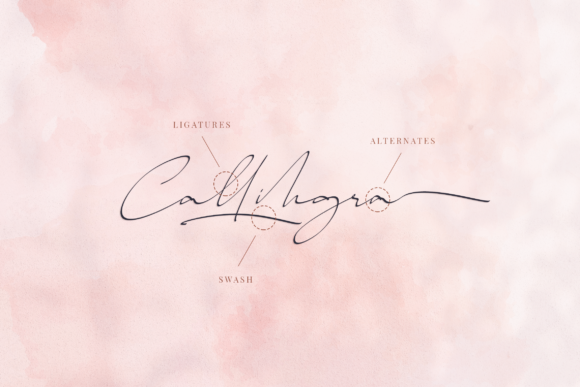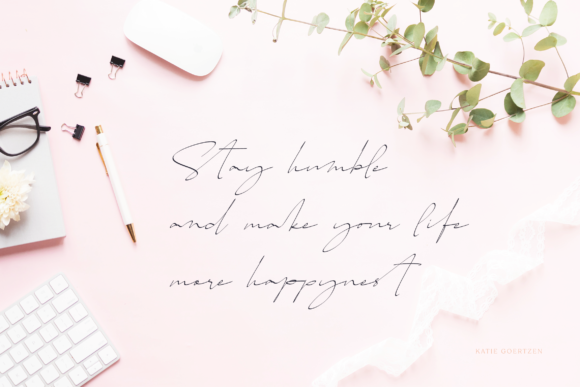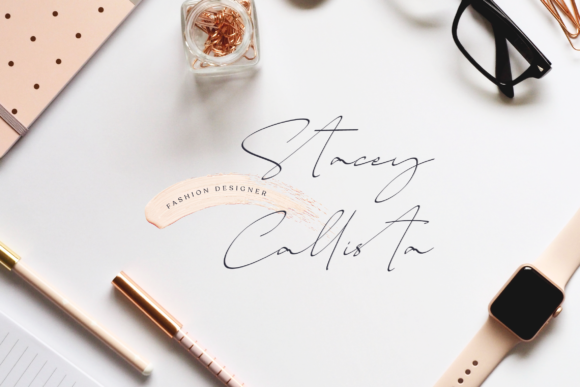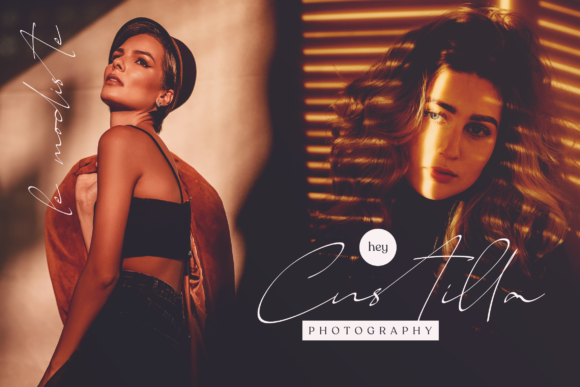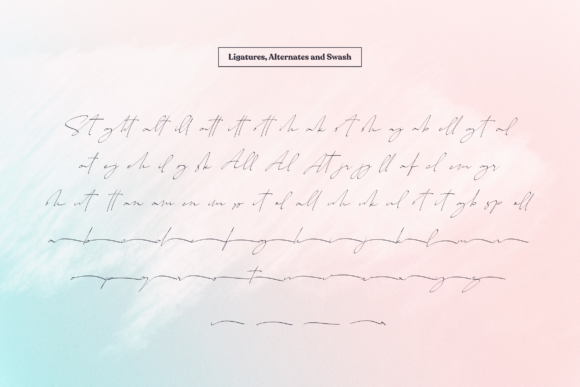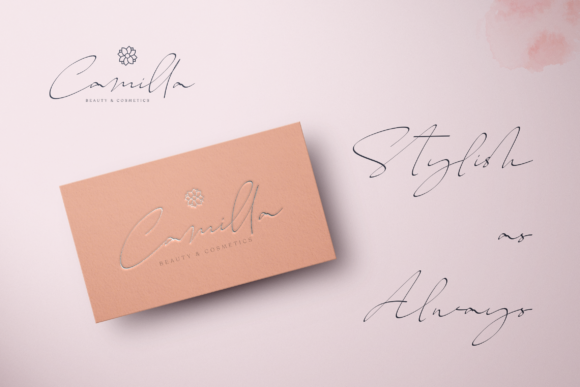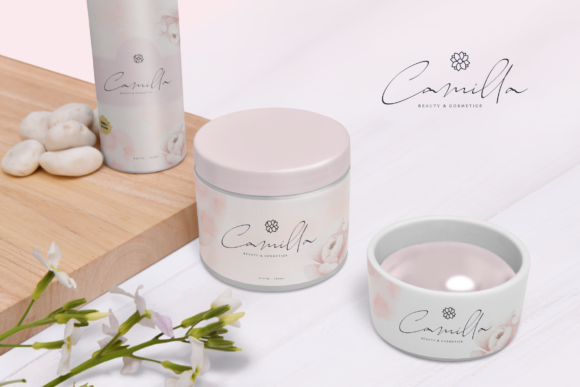
Callihgra Font
About Callihgra Font
Introducing “Callihgra,” a captivating and sophisticated handwritten font that will bring an air of delicacy and elegance to your designs. With its well-balanced characters and flowing lines, “Callihgra” exudes a sense of grace and beauty that complements a wide range of design styles. Here are some key features that set “Callihgra” apart:
Delicate and Elegant: The graceful curves and gentle strokes of “Callihgra” make it a perfect choice for projects that require a touch of sophistication. Its delicate nature adds a sense of refinement and elegance to any design.
Varying Baseline: The varying baseline of “Callihgra” adds a subtle touch of handcrafted charm to your text, mimicking the natural flow of handwritten calligraphy. This feature gives your designs a unique and personalized feel.
Smooth Lines: The smooth and seamless lines of “Callihgra” create a sense of fluidity, making it pleasing to the eye and enhancing readability. This ensures that your message comes across effortlessly in any context.
Gorgeous Glyphs and Alternates: “Callihgra” comes with a delightful array of beautiful glyphs and alternates, allowing you to experiment and customize your text for a truly unique look. These extra elements provide versatility and creativity in your design process.
Wide Pool of Designs: Thanks to its versatile nature, “Callihgra” is suitable for a vast range of projects. From wedding invitations and thank-you cards to quotes, logos, and business cards, this font will elevate any design to a higher level.
Attention to Detail: The attention to detail in “Callihgra” is evident in every stroke and curve. Each character is meticulously crafted to ensure a harmonious and visually stunning result.
Whether you’re working on a wedding project, branding materials, social media graphics, or any other creative endeavor, “Callihgra” will add a touch of sophistication and elegance that will leave a lasting impression. Embrace the beauty of “Callihgra” and watch your creative ideas come alive with its captivating charm and timeless appeal.